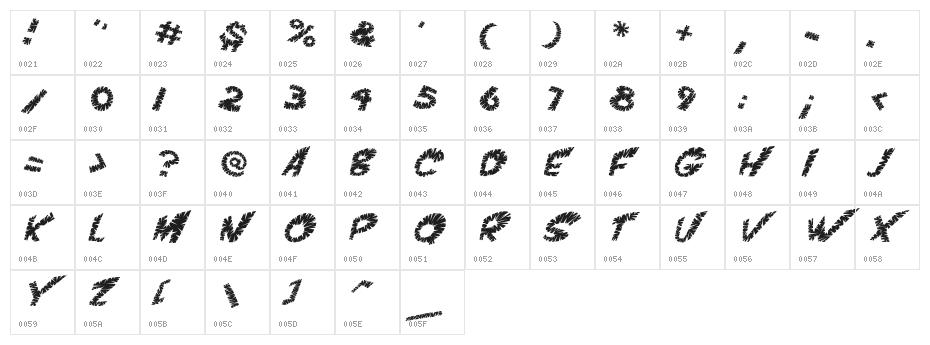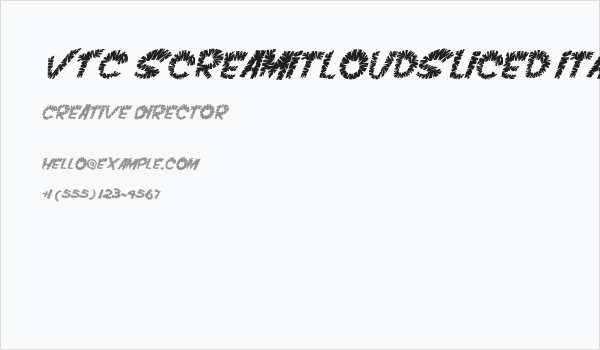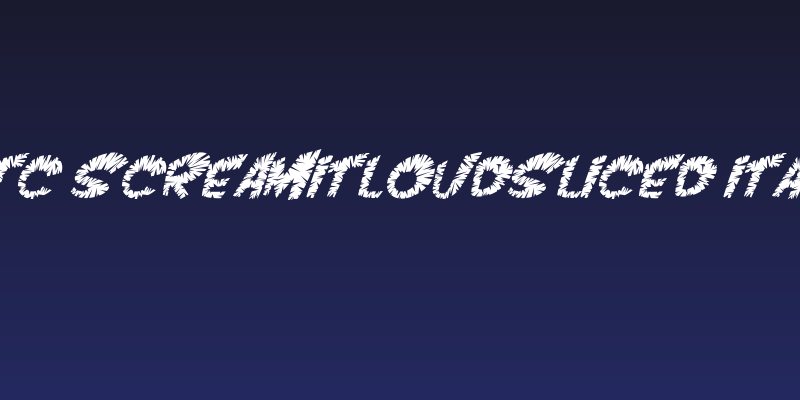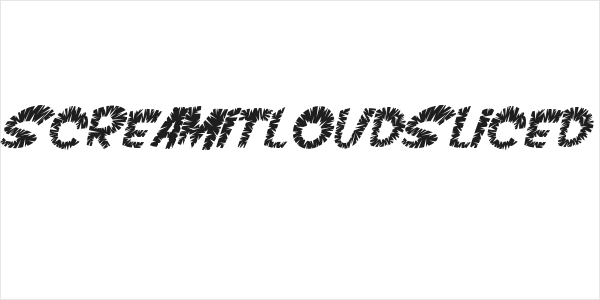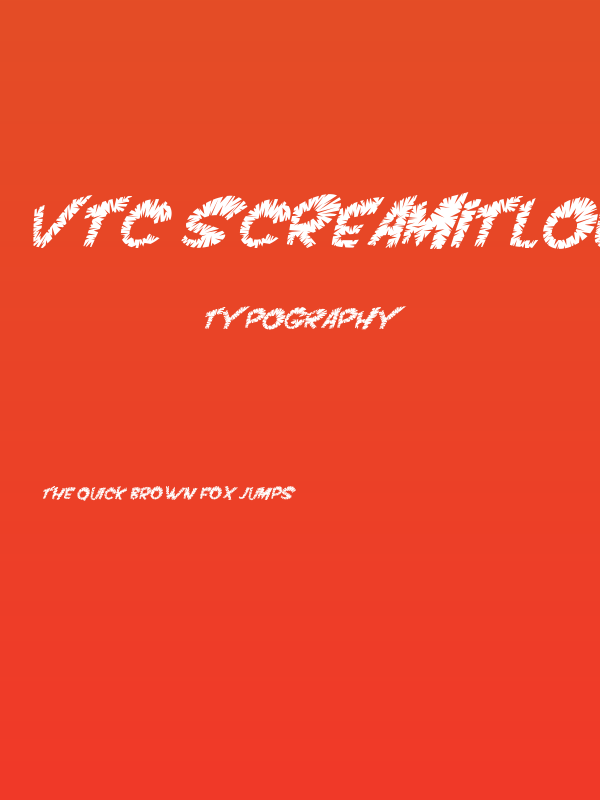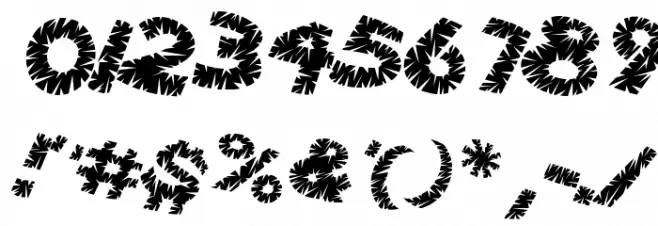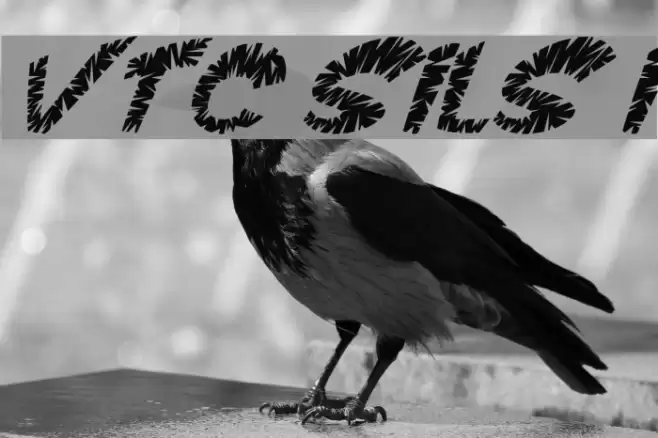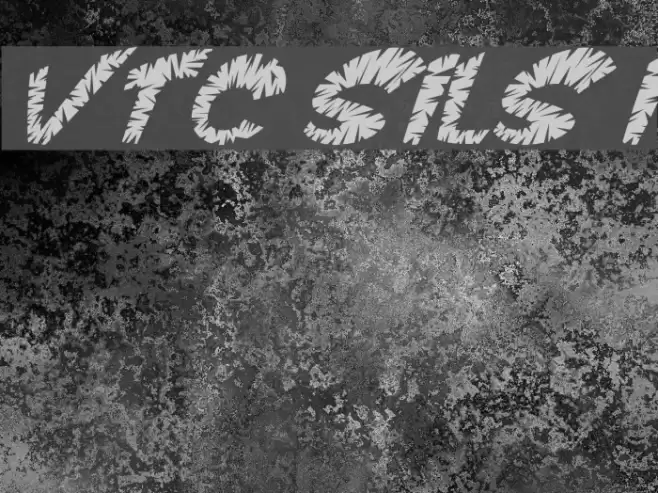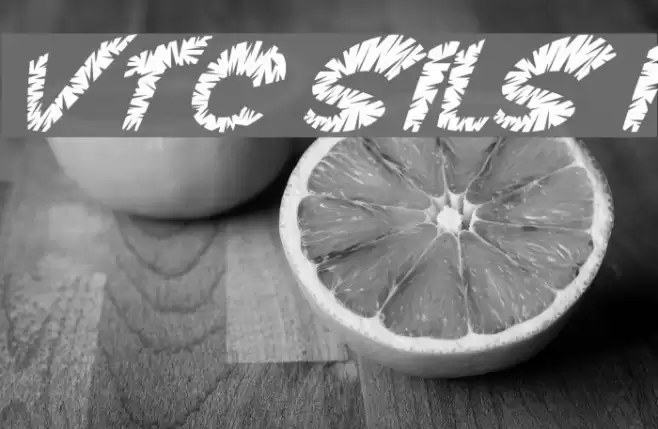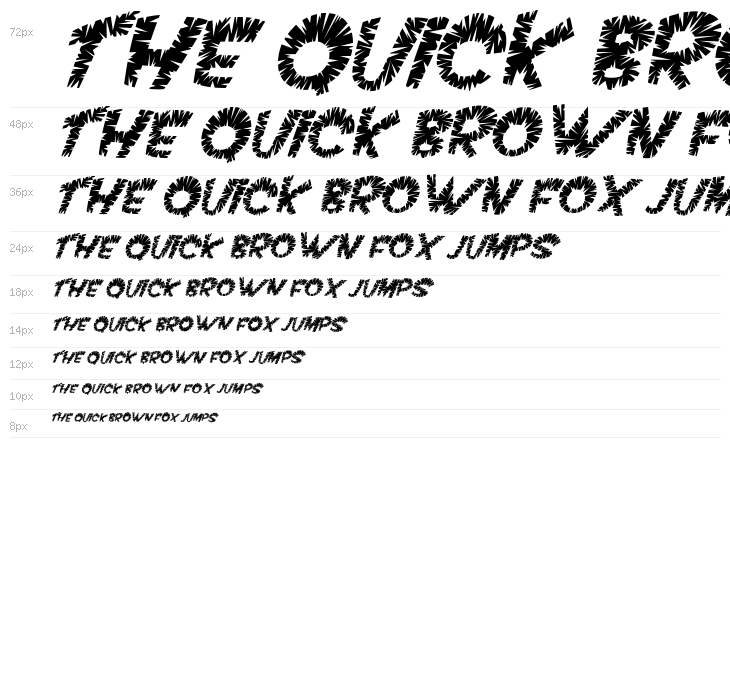
VTC ScreamItLoudSliced Italic Font
VTC ScreamItLoudSliced Italic Description
This font features a bold, dynamic style with a sliced, jagged appearance that gives it an edgy and energetic feel. The characters are heavily stylized with sharp, angular cuts that create a sense of movement and intensity. The italic slant adds to the dynamic nature, making it appear as if the letters are in motion. This font is highly decorative and eye-catching, perfect for making a strong visual impact. The uppercase and lowercase letters maintain consistency in their sliced design, while the numbers and special characters follow the same theme, ensuring a cohesive look across all text elements.
| Overall Style | Modern, Edgy |
| Proposed Projects | Ideal for music album covers, event posters, video game titles, and any project needing a bold, energetic typeface. |